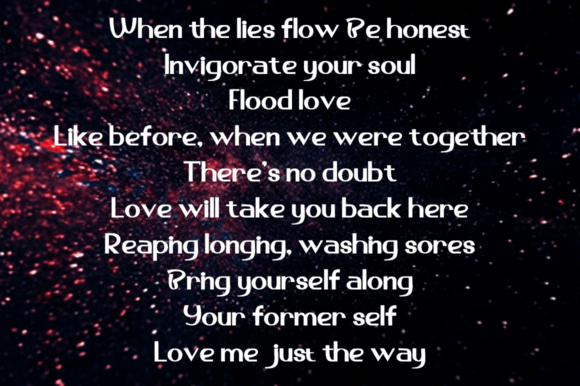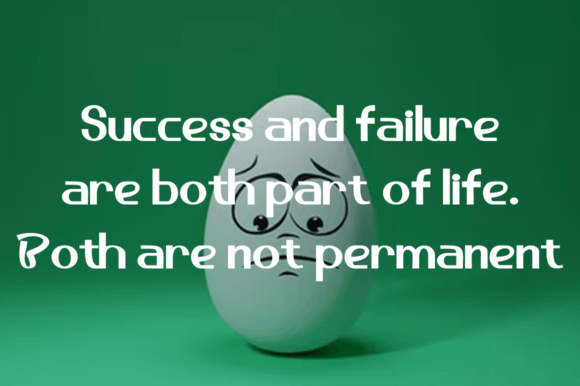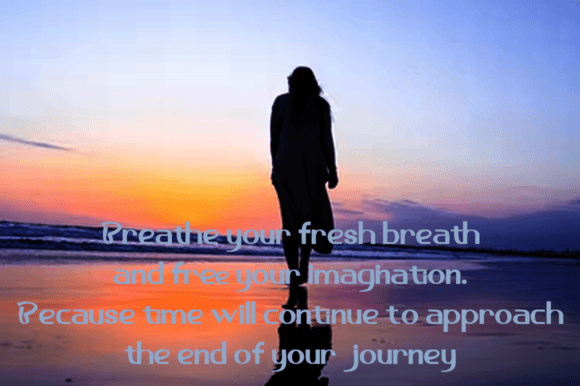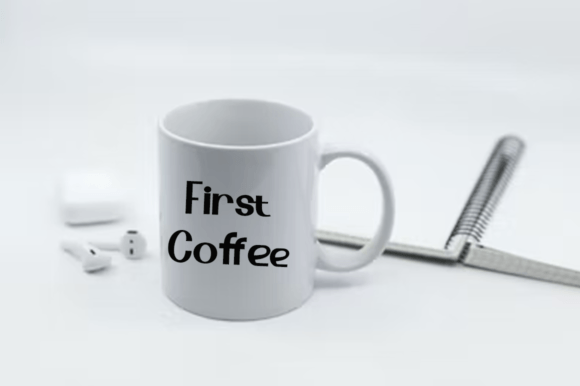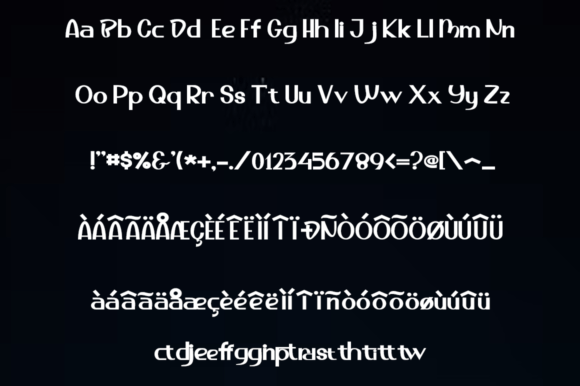
Hop into Creativity with Easter Font: A Modern Calligraphy Delight
Are you looking for a font that adds a touch of casual modern calligraphy to your designs? Look no further! Introducing Easter Font, a cute handwriting display font perfect for designers and crafters seeking a fresh and playful look. This delightful font is designed to bring a smile to your face and a hop to your designs.
What Makes Easter Font So Special?
Easter Font is more than just a pretty face. It’s a versatile and feature-rich font that will take your designs to the next level. Here are some of its exciting features:
• Uppercase and Lowercase Letters: The font includes both uppercase and lowercase letters, giving you the flexibility to create stunning titles, headings, and body text.
• Numbers and Punctuation: You’ll have access to a range of numbers and punctuation marks, making it easy to create complex designs and layouts.
• Multilingual Support: Easter Font supports a wide range of Western European languages, ensuring that your designs can reach a global audience.
• Standard Ligature: The font features standard ligatures, which help to create a more natural and fluid look.
What languages are supported?
Easter Font includes multilingual support for Western European languages.
With Easter Font, you’ll have a delightful and modern calligraphy font at your fingertips. Perfect for designers and crafters looking to add a touch of whimsy to their work, this font is sure to become a favorite. So why wait? Hop into creativity with Easter Font and make your designs shine!